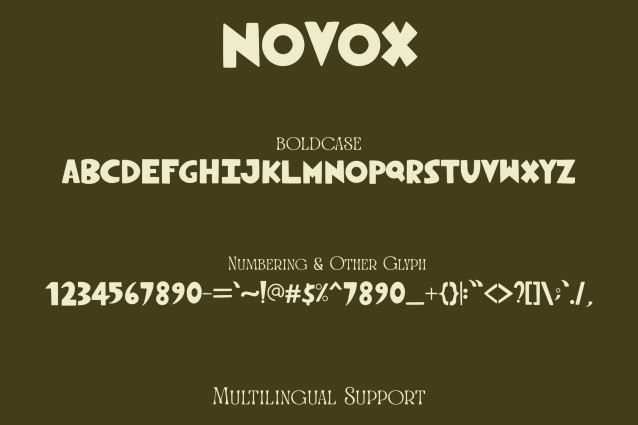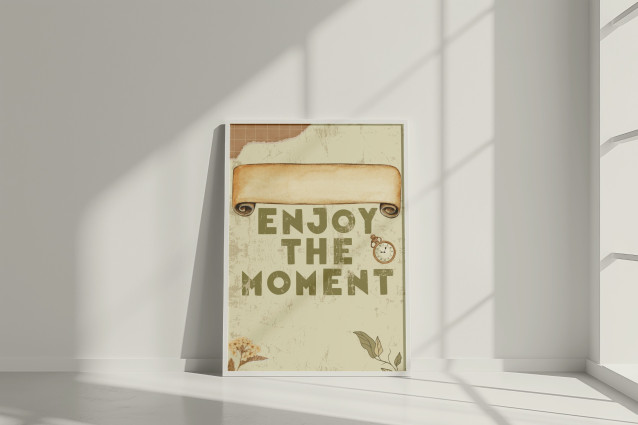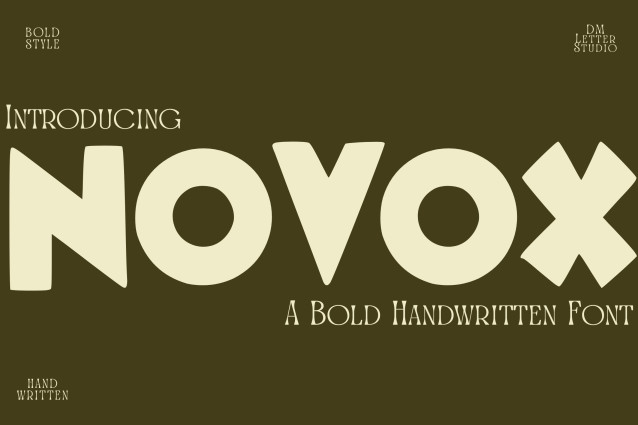
Novox Font
Novox Font is a powerful and expressive handwritten font that combines bold strokes with natural penmanship. Designed to make a strong visual impact while maintaining a casual, handcrafted feel, Novox is perfect for logos, posters, product packaging, branding, and bold statement pieces. Its energetic character and handcrafted charm bring personality to any creative project.